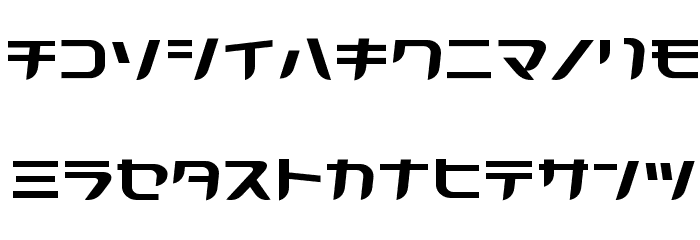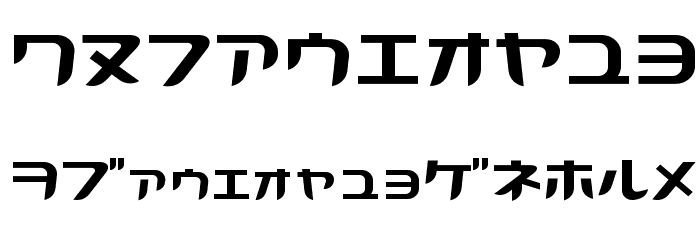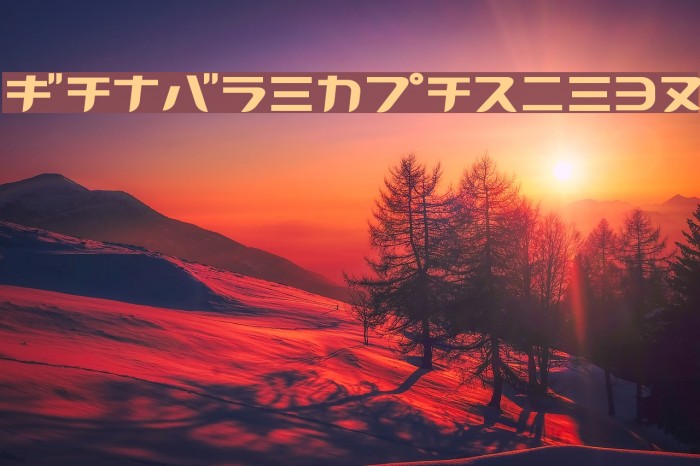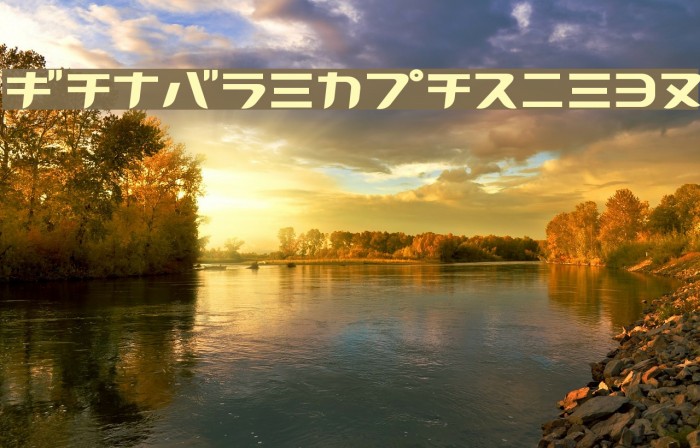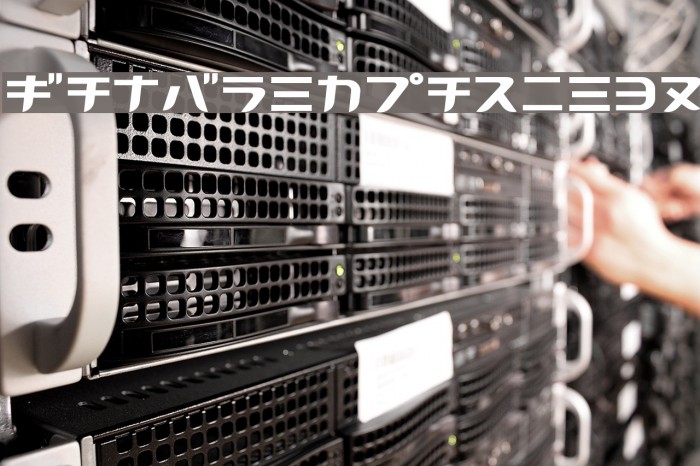
GauFontKarin91 Font
This font features bold, geometric shapes with a modern and clean aesthetic. The characters are well-defined with consistent stroke widths, giving it a uniform appearance. The design is minimalistic, focusing on clarity and readability. The font's structure is slightly condensed, making it suitable for compact spaces while maintaining legibility. Its contemporary style is versatile, fitting both digital and print media. The overall look is sleek and professional, making it ideal for various design applications.
A bold, geometric font with a modern and clean aesthetic.
- Proposed Projects: Ideal for branding, advertising, digital interfaces, and editorial design.
- Use Case: Headlines, Logos, Digital interfaces